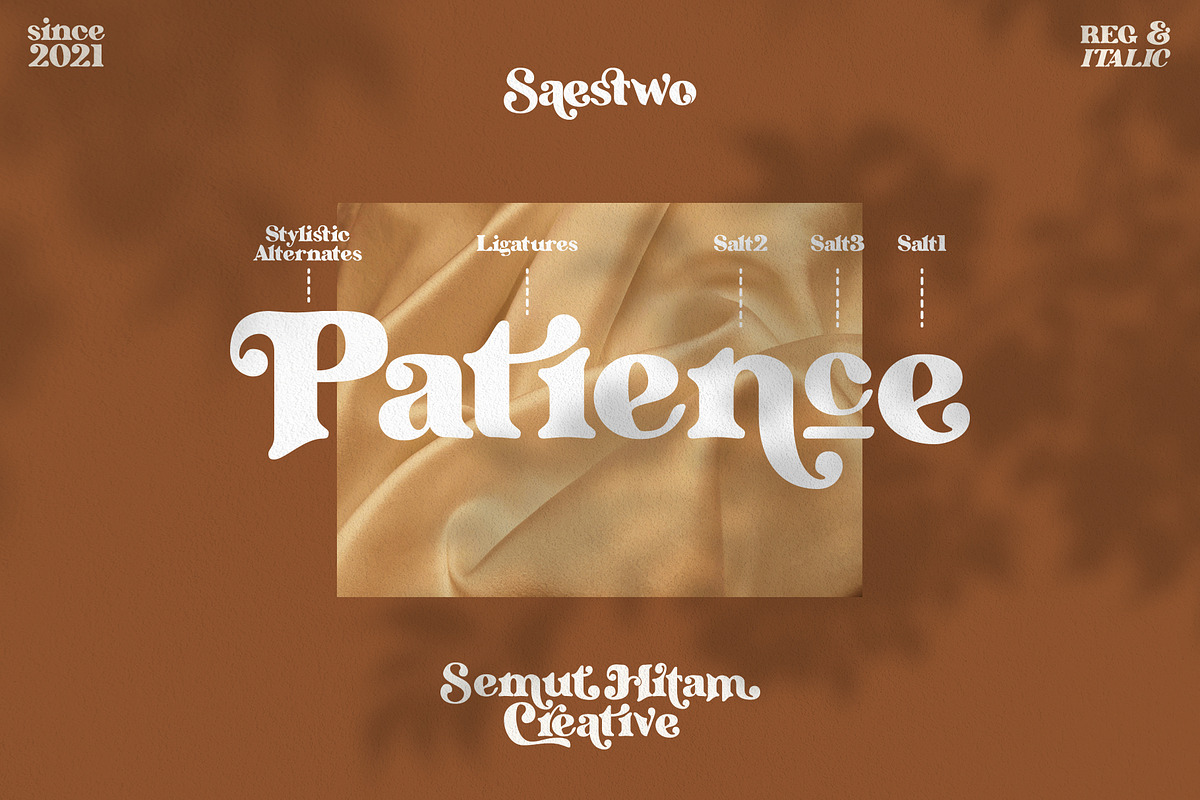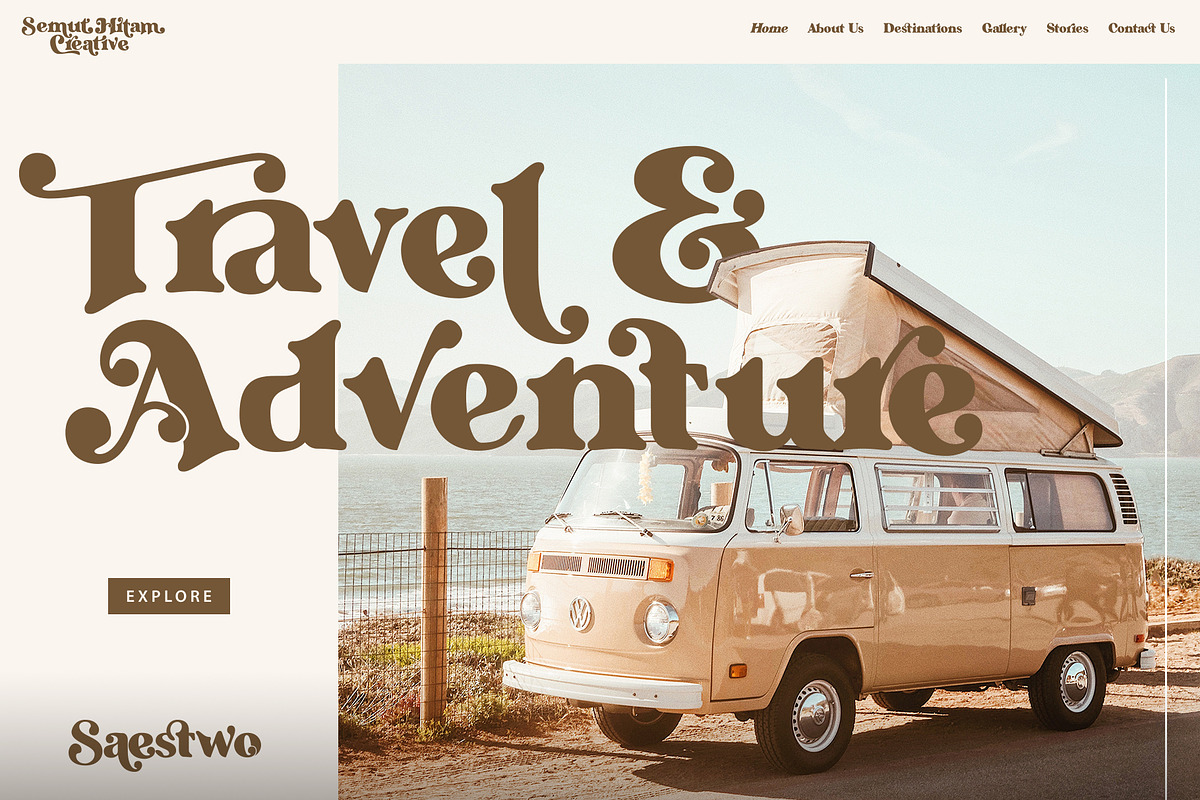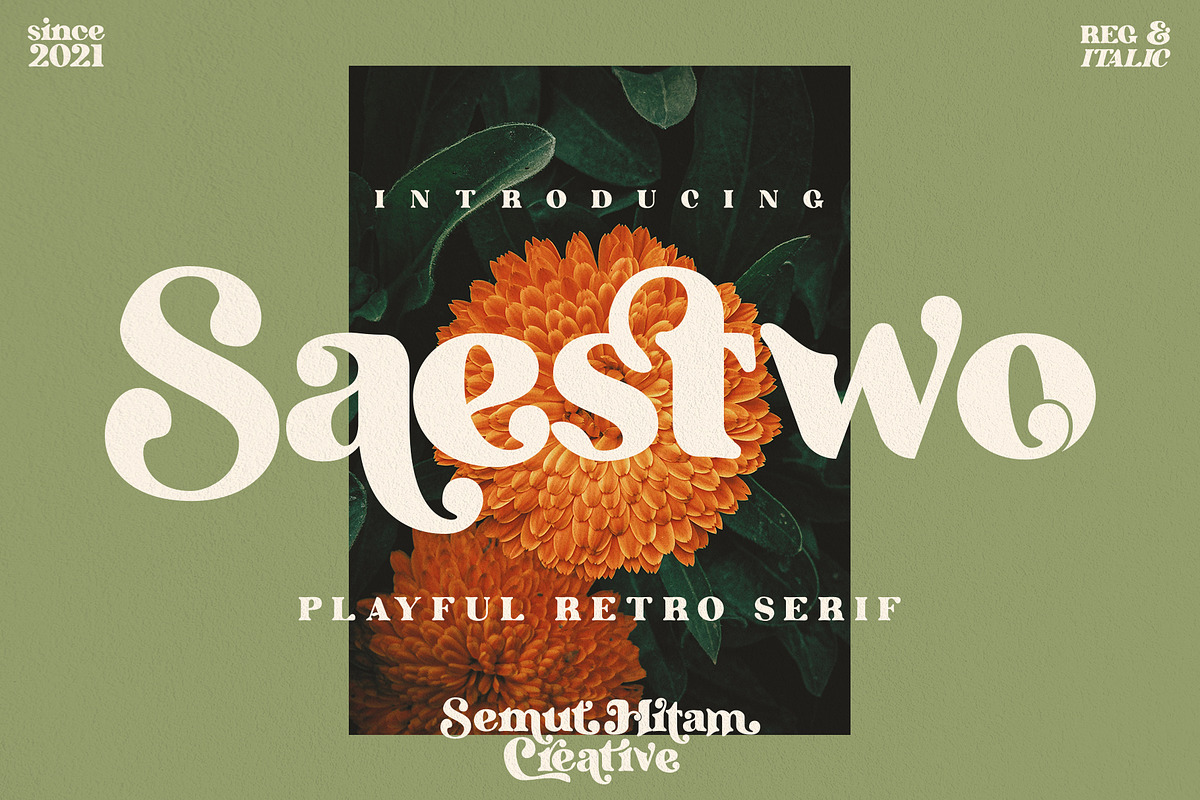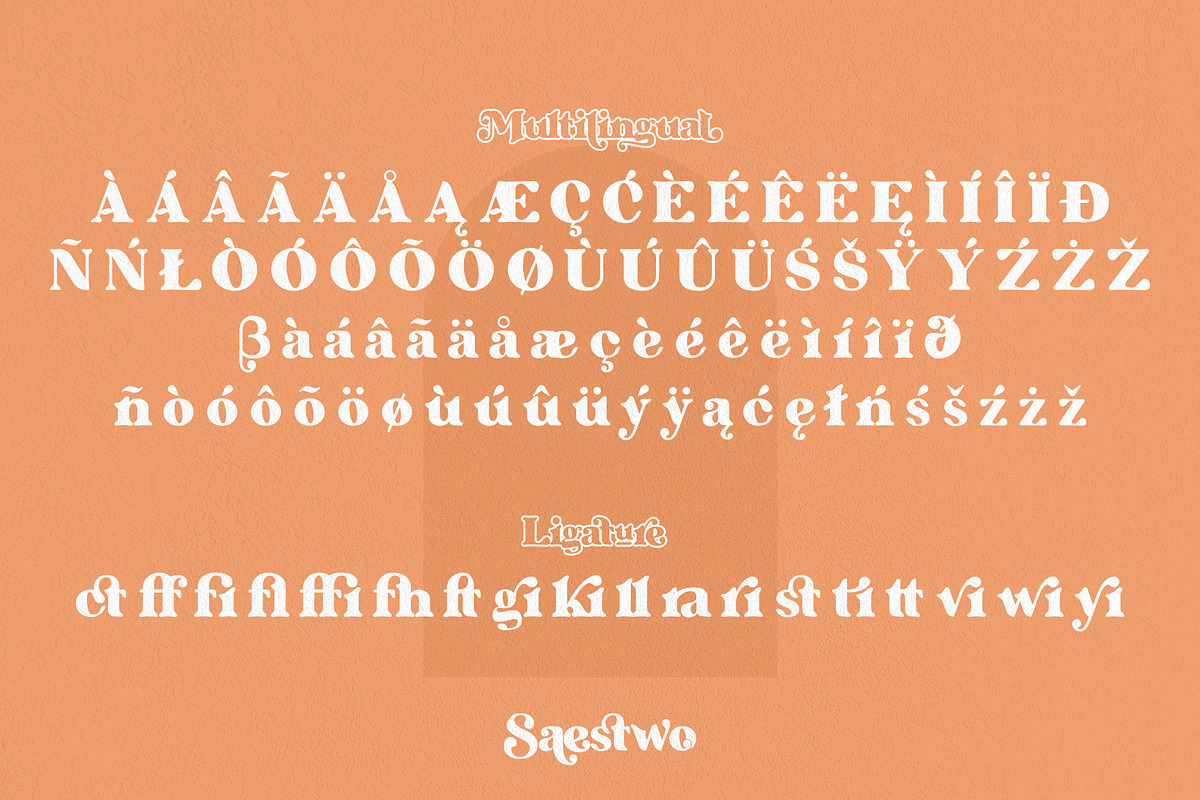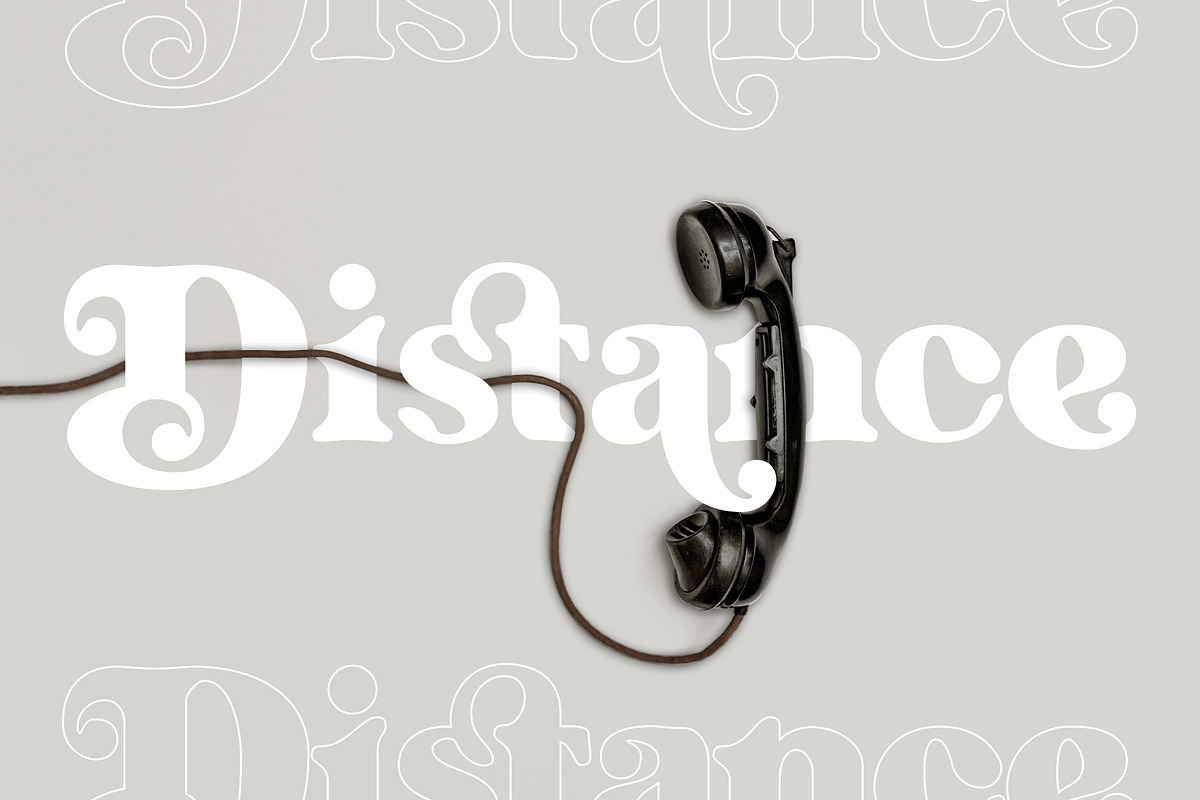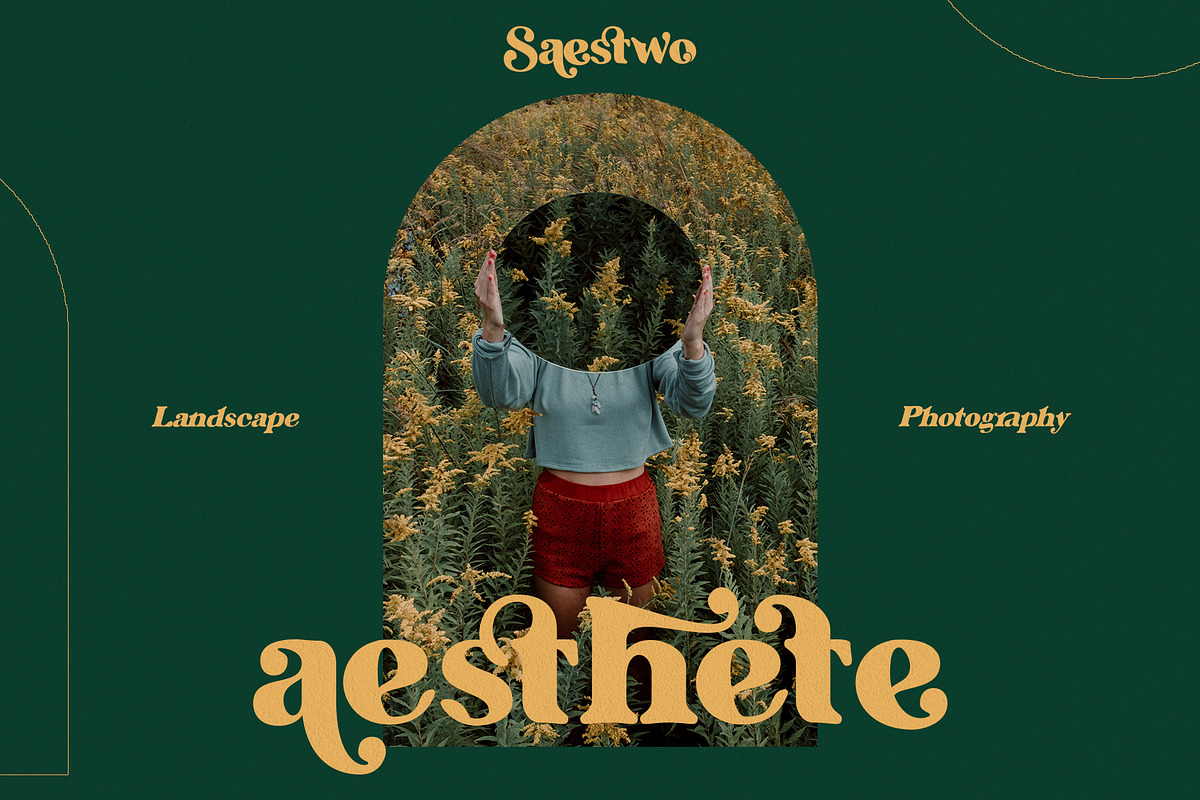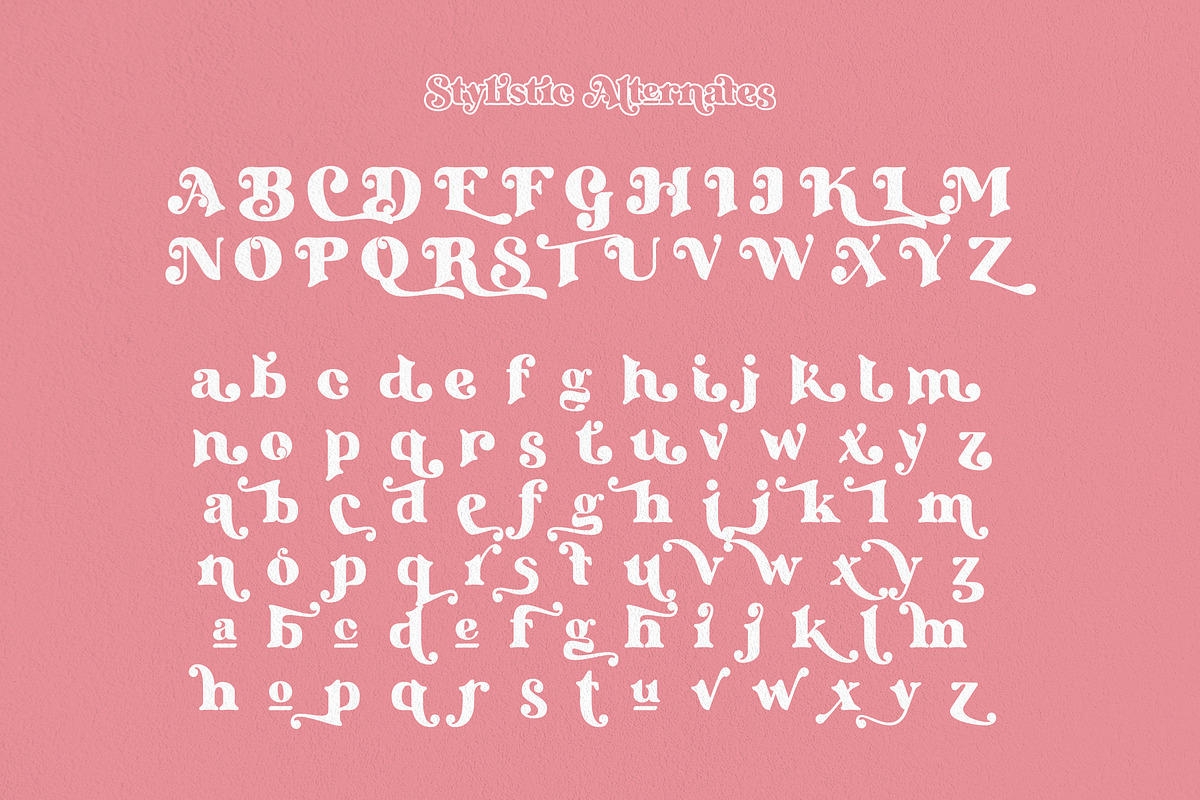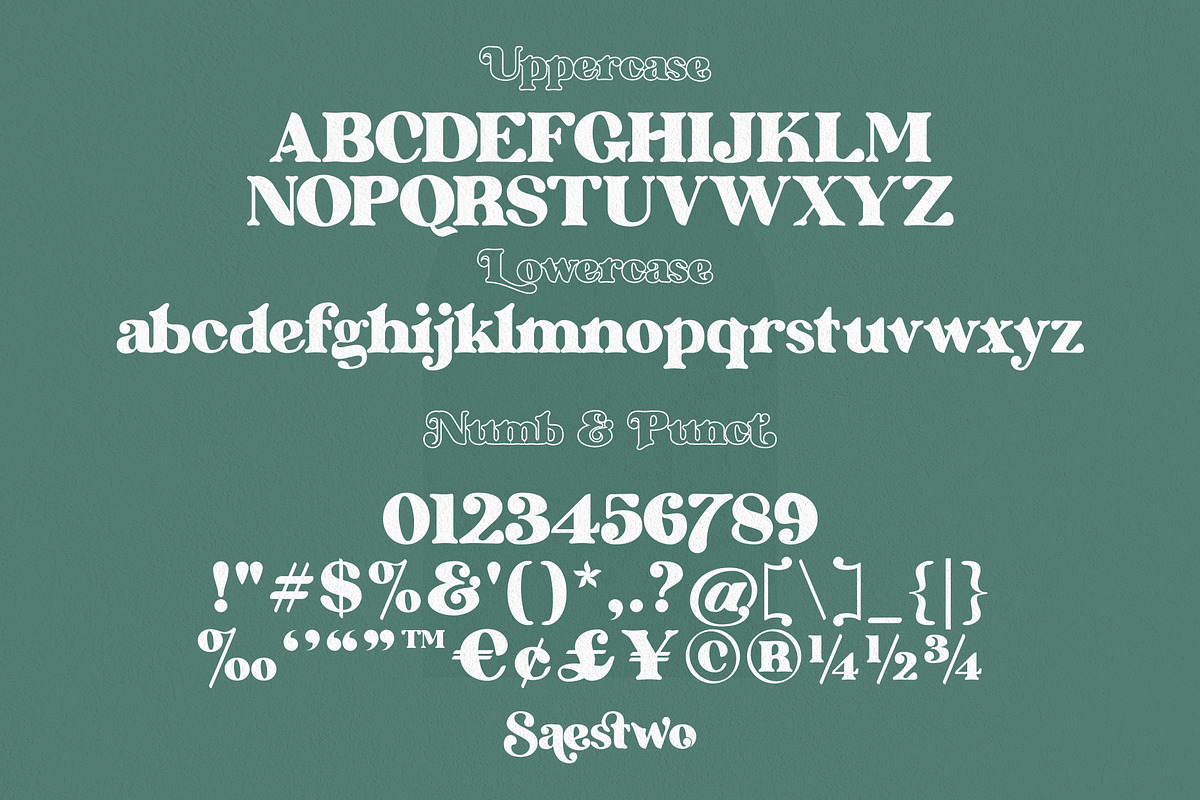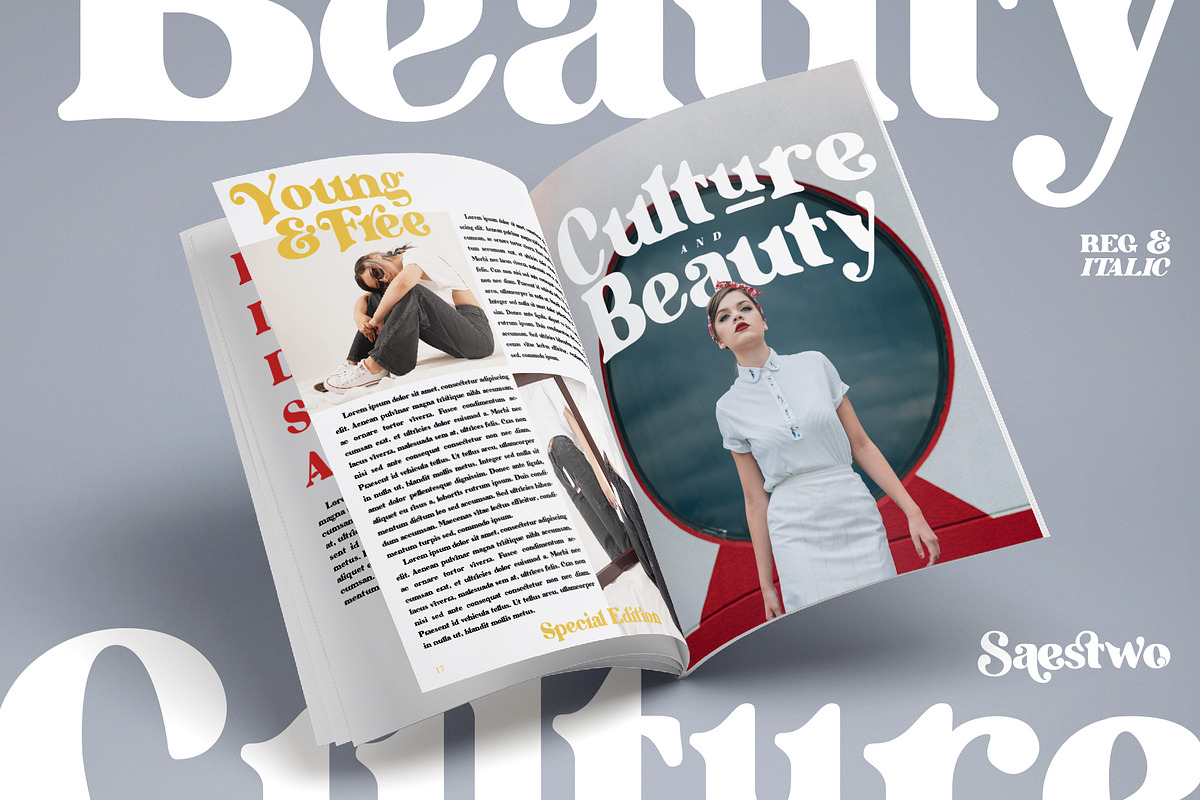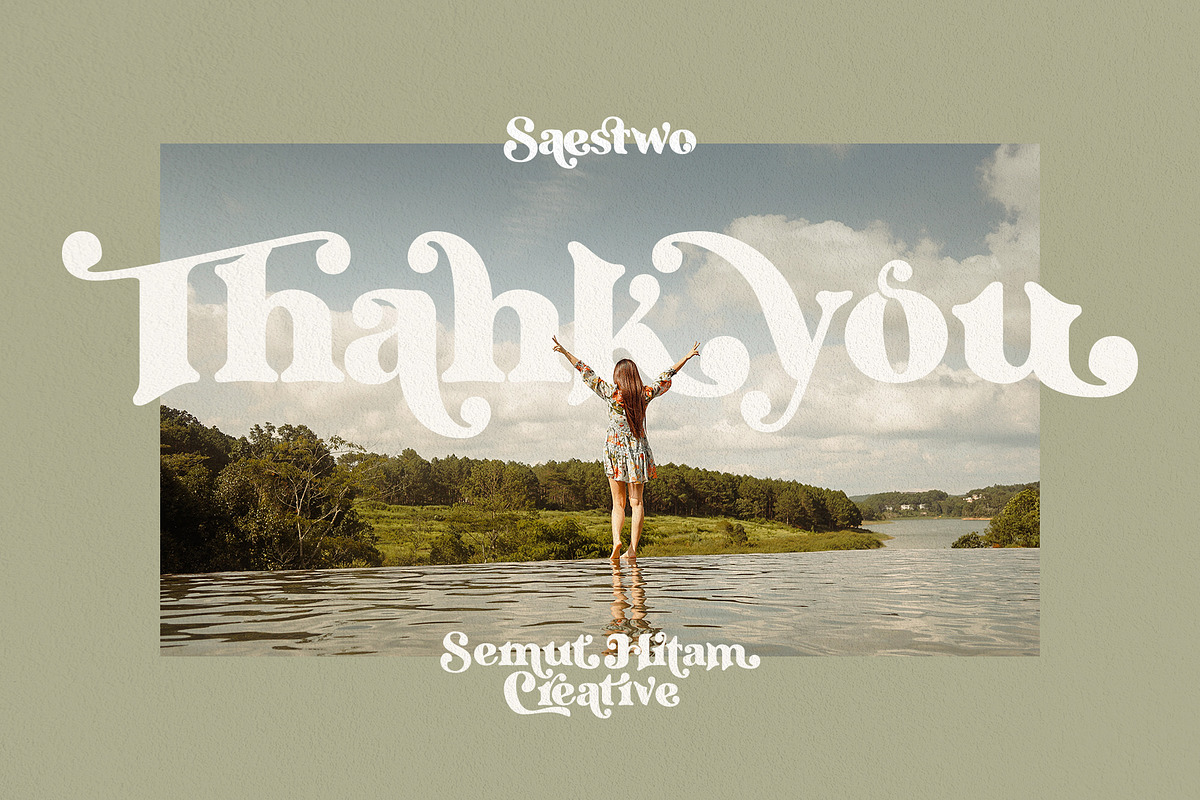
Saestwo - Playful Retro Serif
Saestwo is a playful retro style serif. done carefully, creating a curved corner pattern on some corners of the letter so that it looks very fun with a combination of several Alternates and Ligatures that make Saestwo look more playful. Saestwo includes full set of elegant uppercase, lowercase letters, numbers, punctuation, multilingual language, and various ligatures.